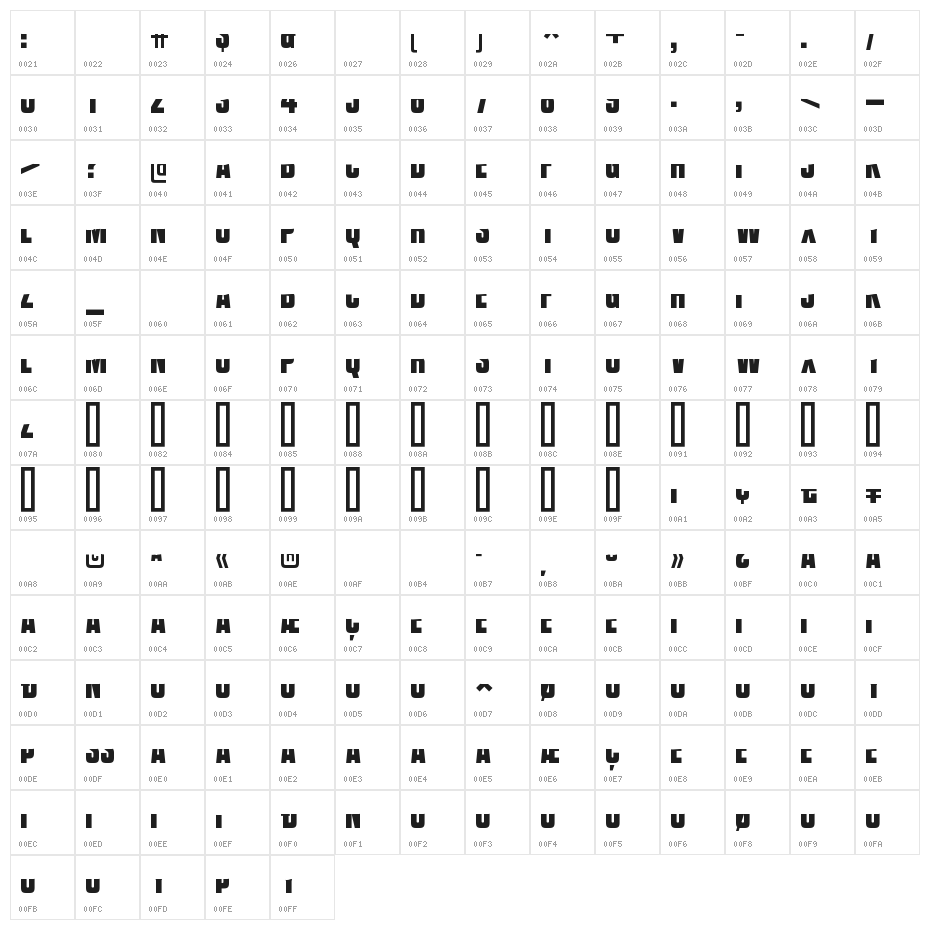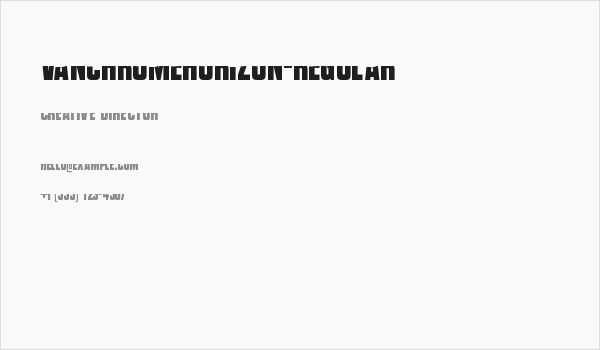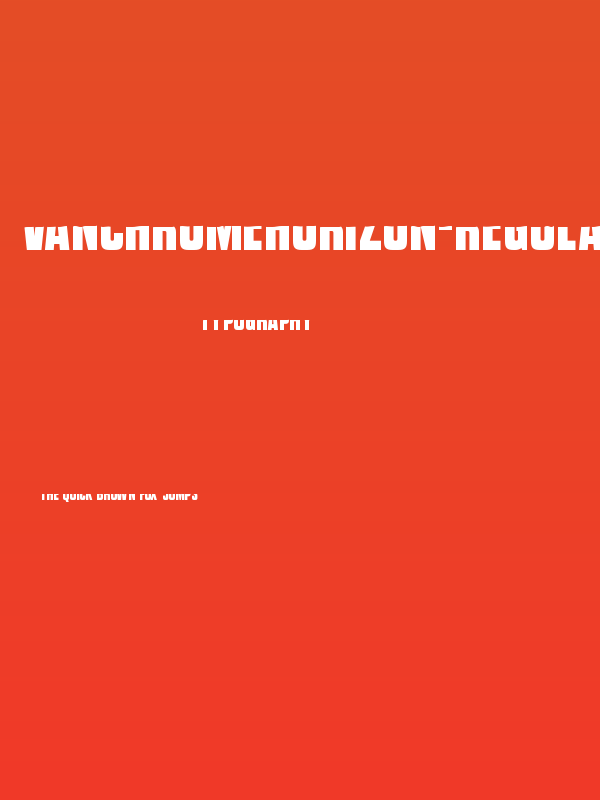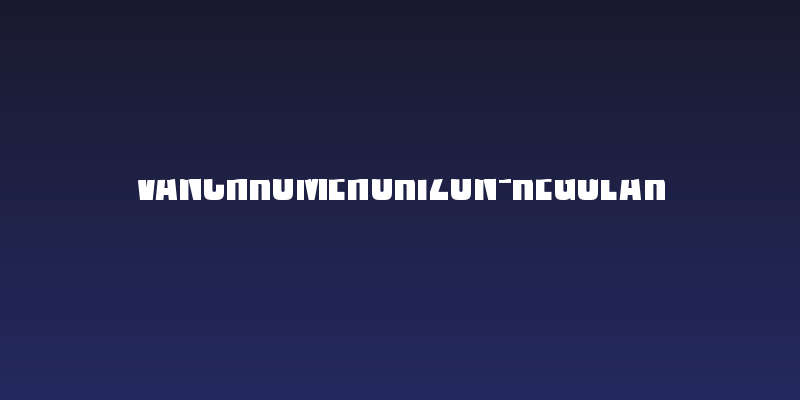
VanchromeHorizon-Regular Font
VanchromeHorizon-Regular Description
This font features a bold and striking design with a strong geometric influence. The characters are wide and have a blocky appearance, with sharp angles and a futuristic aesthetic. The uppercase letters are particularly prominent, with a consistent height and width that gives the font a uniform look. The lowercase letters maintain the same boldness, ensuring readability while adding a unique flair. Numbers and special characters are designed to match the overall style, making them stand out while remaining cohesive with the rest of the font. The font's high contrast and thick strokes make it ideal for attention-grabbing designs.
| Proposed Projects | Ideal for posters, headlines, branding, and any project requiring a bold statement. |